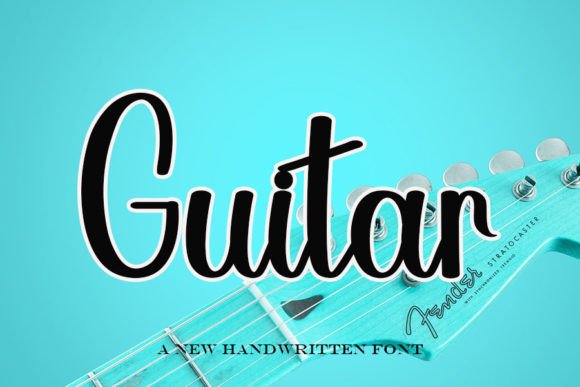
In a world teeming with fonts, one stands out like a melody, cascading with charm and elegance - Guitar Font. This script font, a brainchild of the renowned putrasyahreza00, captivates hearts with its beautifully handwritten style, evoking the nostalgia of handwritten love letters and the allure of vintage posters. It's a font that speaks to your soul, urging you to unleash your creativity and weave tales with ink and imagination.
Guitar Font effortlessly blends tradition and modernity, embodying timeless aesthetics while harmonizing seamlessly with the demands of contemporary design. Its lines dance like notes on a musical staff, each stroke a testament to the artistry that went into its creation. Whether you're a seasoned designer or a creative explorer, Guitar Font will resonate with you, inviting you to orchestrate visual masterpieces.
Immerse yourself in the world of Guitar Font and discover a symphony of possibilities. Craft logos that sing with personality, design invitations that exude elegance, and create social media posts that captivate audiences. Let your imagination soar as you utilize this font to design posters that command attention, book covers that intrigue readers, and branding materials that leave a lasting impression.
Guitar Font is more than just a collection of characters; it's an invitation to embark on a creative journey, to let your artistic vision take center stage. Its versatility knows no bounds, adapting effortlessly to any project, be it a delicate wedding invitation or a bold marketing campaign. Its essence lies in its ability to transform the ordinary into the extraordinary, the mundane into the mesmerizing.
Embrace Guitar Font and unlock a world of creative potential. Experience the joy of crafting designs that resonate with your audience, designs that linger in their minds long after they've encountered them. With its timeless charm and modern sensibility, Guitar Font is the perfect companion for designers seeking to create captivating, unforgettable works of art.